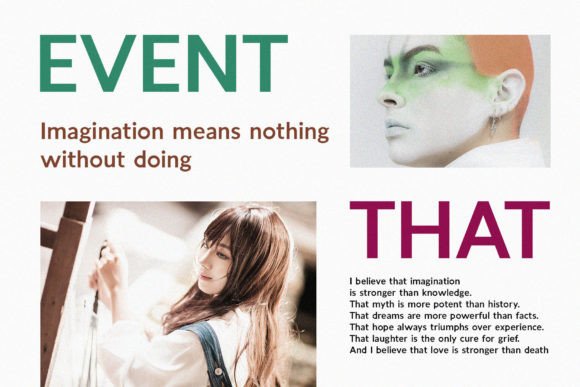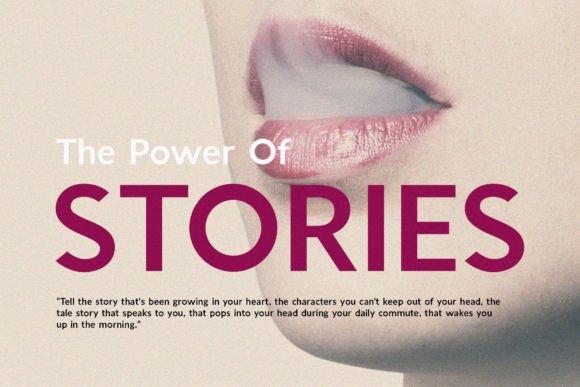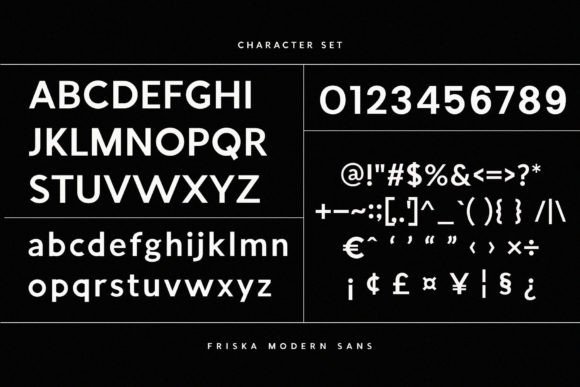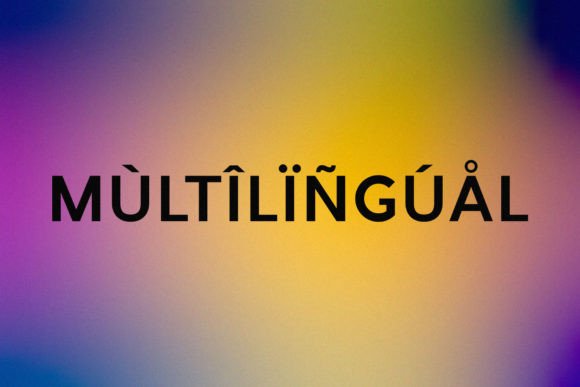
Introduction to Friska Font
Have you ever stared at a blank page, your mind racing with creative ideas but struggling to find the perfect font to bring them to life? That’s where the magic of Friska Font comes in – a stunning sans serif font that’s sure to elevate your designs and leave a lasting impression.
As designers, we’re always on the lookout for that special something to give our projects an extra oomph. And that’s exactly what the Friska Font delivers – a touch of elegance and sophistication that’s perfect for everything from websites and logos to magazines and social media posts.
Key Features of Friska Font
- Unique characteristics include a modern and minimalist aesthetic, making it ideal for logos, headings, and body text
- Designed to be highly legible on various devices and screen sizes
Honest Review: Friska Font
As a designer, I’m always on the lookout for high-quality design resources that can elevate my creative projects. Recently, I stumbled upon the Friska Font, and I must say it’s been a pleasant discovery.
- ✨ One of the standout features of Friska Font is its sleek and modern design aesthetic. The font is perfect for creating a professional and sleek look in any design project.
Overall, I’m impressed with the Friska Font. It’s a solid addition to any designer’s toolkit, and I would definitely recommend it to anyone looking for a high-quality, free design resource.
Friska Font
The Friska Font is perfect for creating:
- Eye-catching headings and titles
- Professional-looking logos and branding
- Engaging social media graphics and ads
To get the most out of the Friska Font, use it with a transparent background to create a clean and modern look. Experiment with different font sizes and styles to add visual interest to your designs.
Alternatives to Friska Font
Monserrat Font is a popular, high-quality sans-serif font perfect for creative projects that require a clean and modern look. It is ideal for use in logos, headings, and titles due to its versatility and legibility. Montserrat Font is a great alternative to Friska Font as it offers a similar aesthetic, but with a more urban feel.
Open Sans Font is a free download that offers a clean and neutral look, making it perfect for use in a variety of design projects, including websites, apps, and print materials. Its transparent background allows for seamless integration with any design resource. Open Sans Font is a great choice for designers who want a high-quality font that is both readable and stylish, making it a suitable alternative to Friska Font.
Lato Font is a modern sans-serif font that is highly legible and versatile, making it perfect for use in a variety of creative projects. Its high-quality design and transparent background make it a great choice for designers who want a font that is both stylish and easy to read. Lato Font is a great alternative to Friska Font as it offers a similar clean and modern look, but with a more elegant feel.